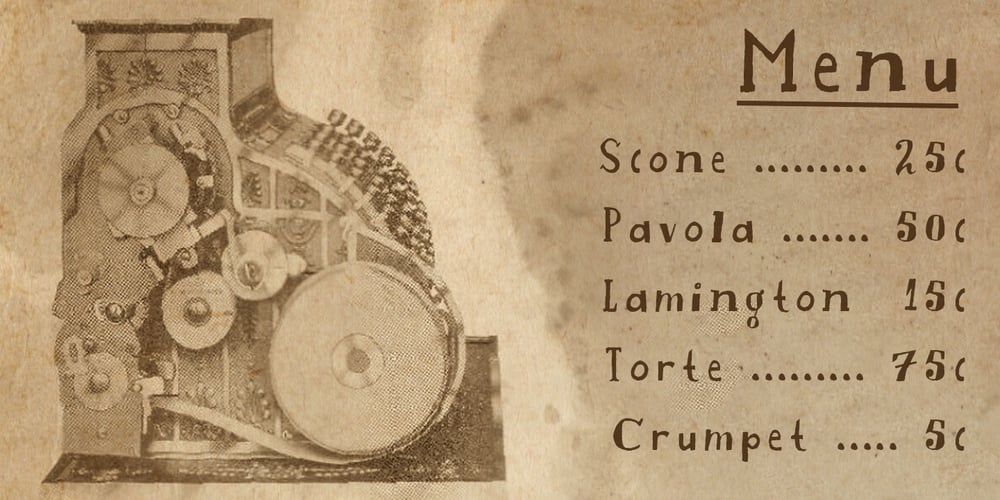
Cake Shop Font Family was designed by David Art Wales and published by Chank. Cake Shop contains 1 styles and family package options. Cake Shop has a lengthy history. Originally designed during the Eighties by Aussie artist David Art Wales, the font was inspired by the awkward but charming hand-lettered signs in a Maltese cake shop near his Sydney home. “These signs were hand-drawn by someone who clearly had no experience but who’d really put their heart and soul into the job. There was a real sincerity to the characters that I wanted to capture.” For a brief time during the early Nineties, MTV used Cake Shop for all their on-air interstitials. Since then, it’s become a go-to font for everything from children’s books to album covers and ice cream branding. In a recent update, Wales added airier spacing to more closely resemble the original signs the font was based on.